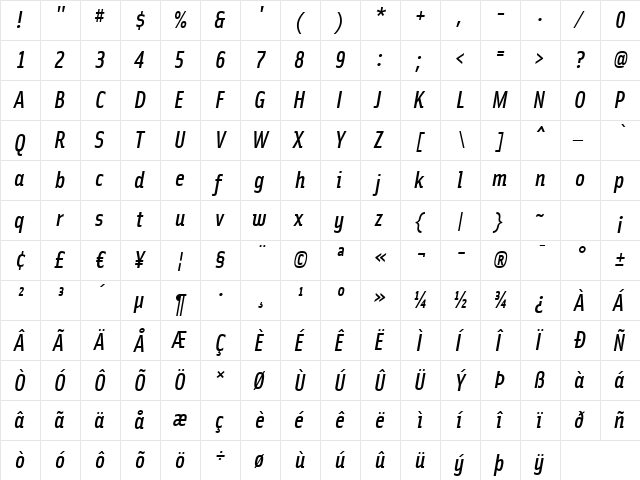
SolexMediumLiningItalic Regular
| Foundry | Emigre Inc. |
| Designer | Zuzana Licko |
Design Context for SolexMediumLiningItalic Typeface
SolexMediumLiningItalic takes a measured approach to typography — its balanced proportions and neutral character make it a reliable workhorse for both digital and print work. The slanted form adds forward momentum and visual energy.
Pro Tip: Try SolexMediumLiningItalic for annotation and caption copy alongside an upright companion — the contrast in angle creates a dynamic but ordered typographic system.